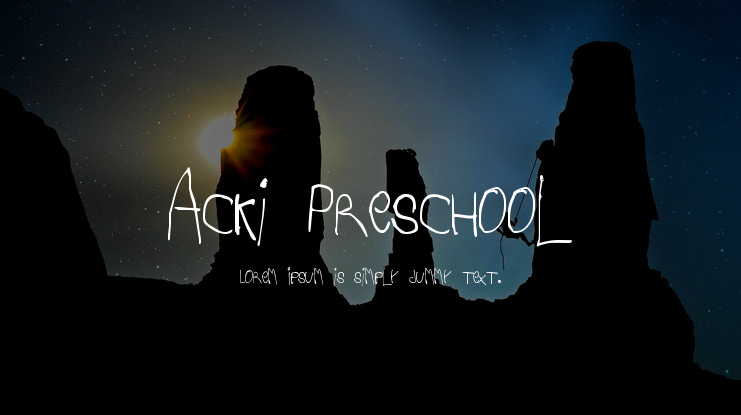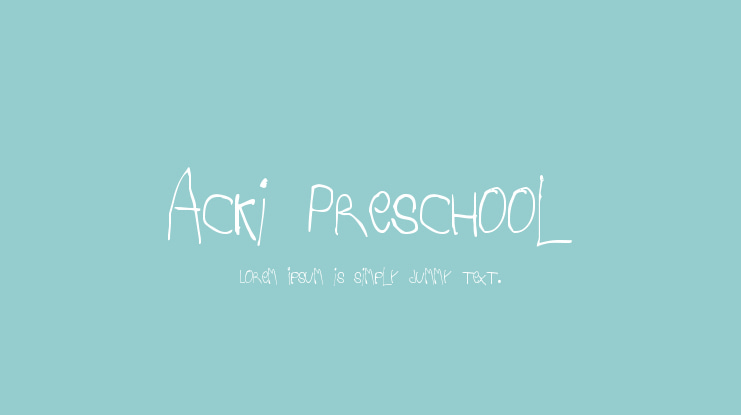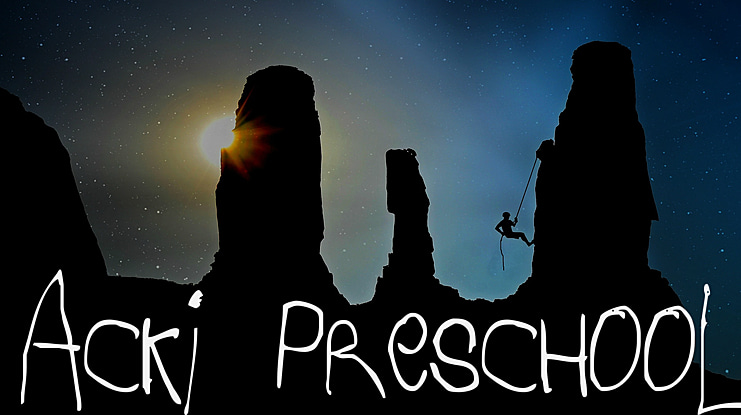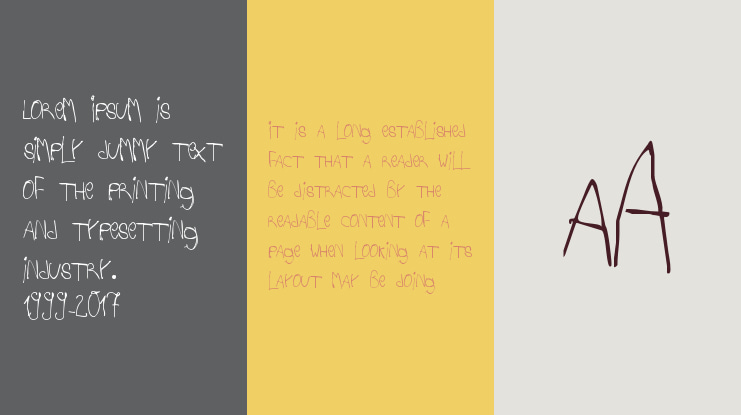
Acki Preschool Font
Hi everyone, this is what my handwriting looked like before I even went to school. When I was five, I could read and write (well, except for correct spelling).